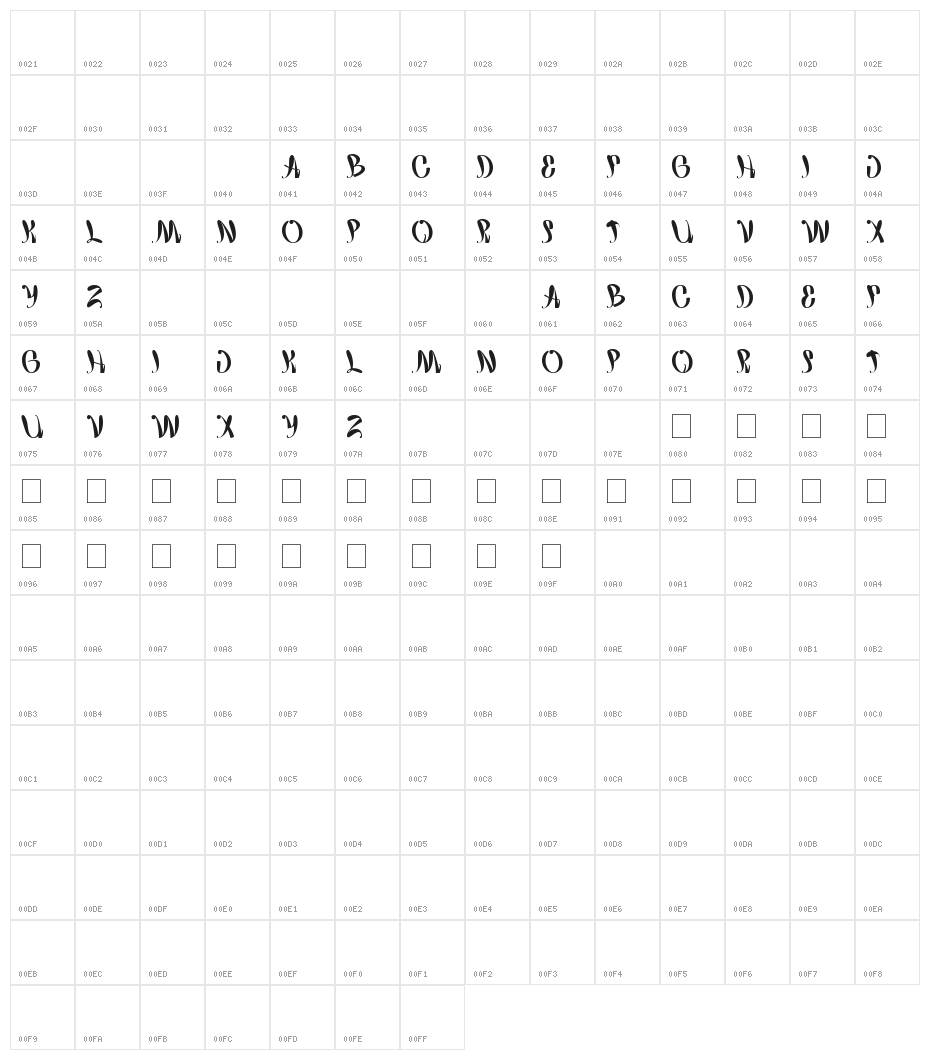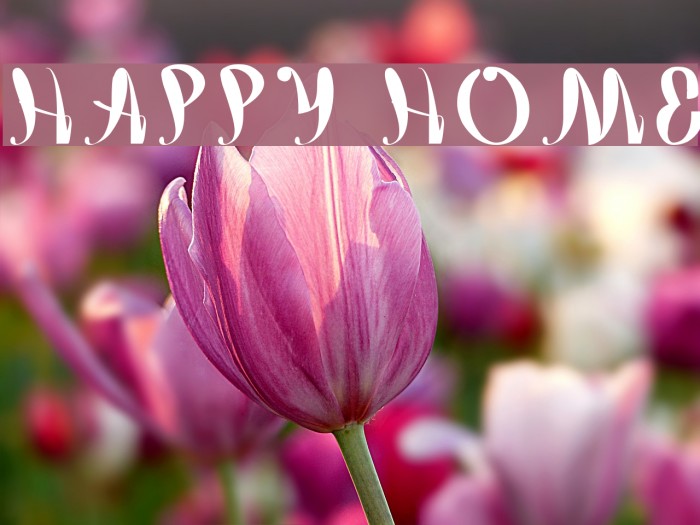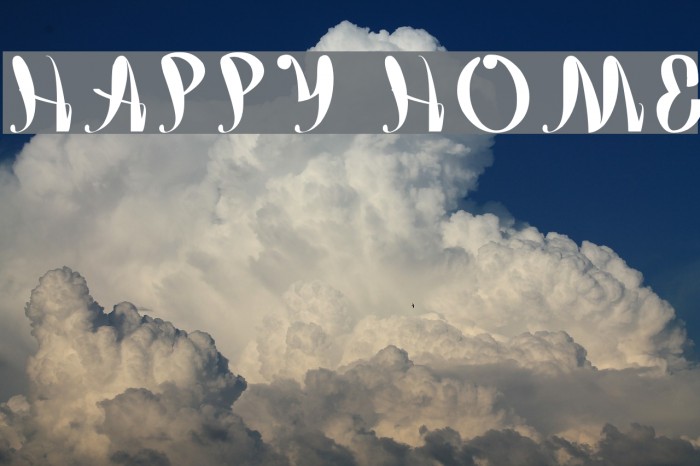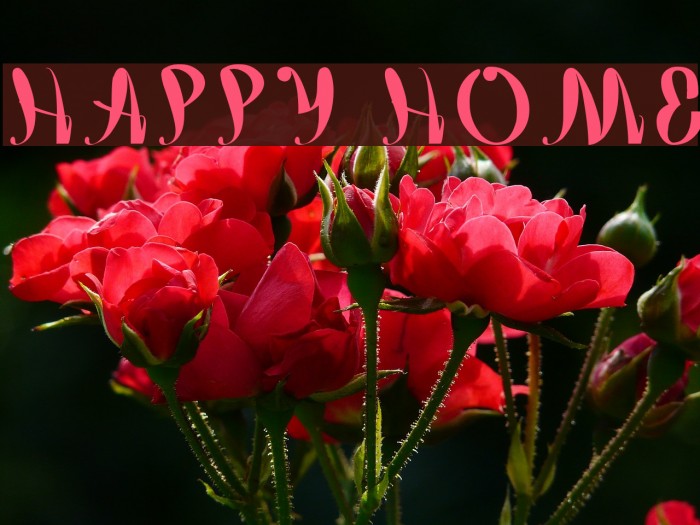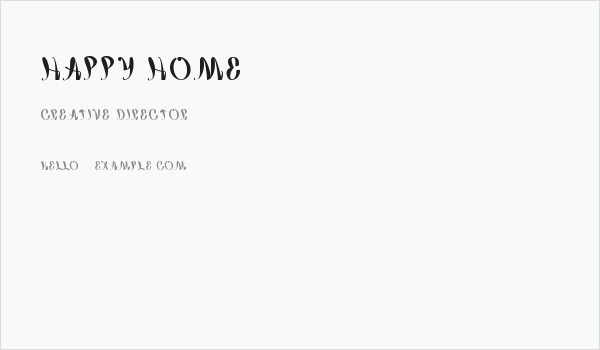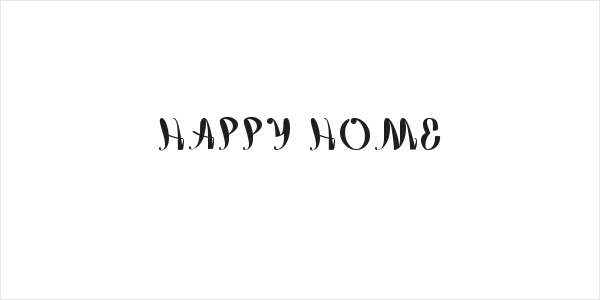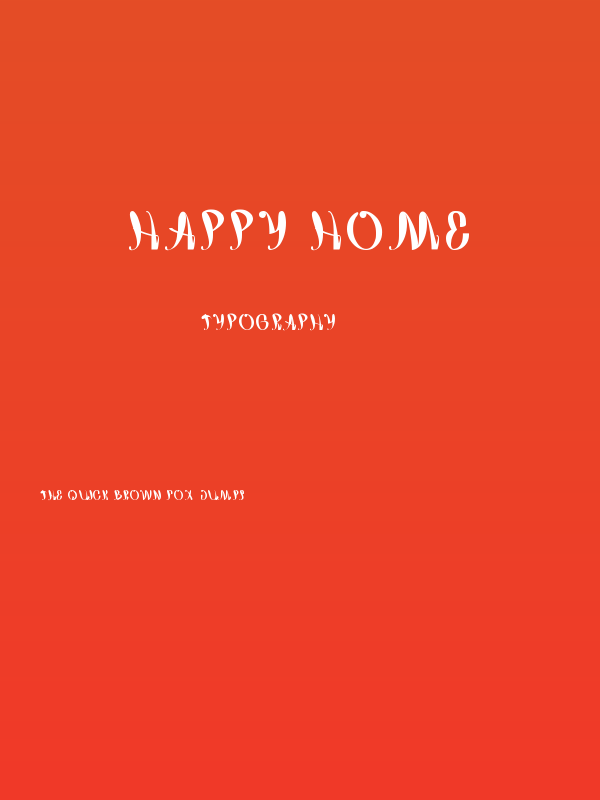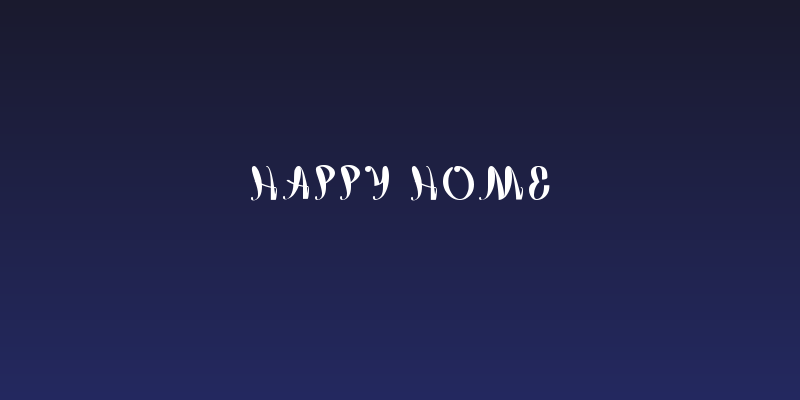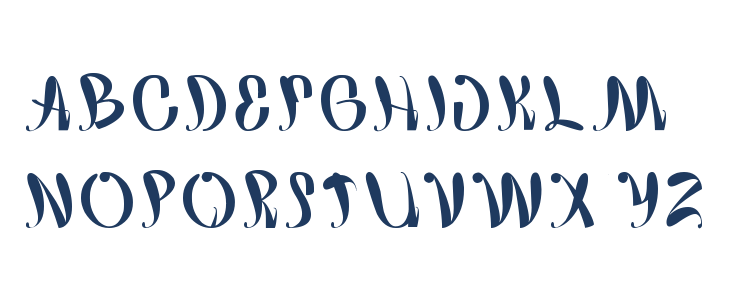
happy home Font
happy home Description
This font features a whimsical and decorative style, characterized by its bold and flowing letterforms. Each character is adorned with unique swirls and curls, giving it an artistic flair. The uppercase letters are particularly ornate, with exaggerated curves and loops that create a sense of movement and elegance. The lowercase letters maintain this decorative theme, though they are slightly more restrained, providing a nice balance. The numbers and special characters are equally stylized, ensuring consistency throughout the typeface. This font's playful yet sophisticated design makes it suitable for creative projects that require a touch of elegance and personality.
Use CaseLogos, Headlines, Invitations
Proposed ProjectsIdeal for wedding invitations, greeting cards, branding for creative businesses, and decorative posters.